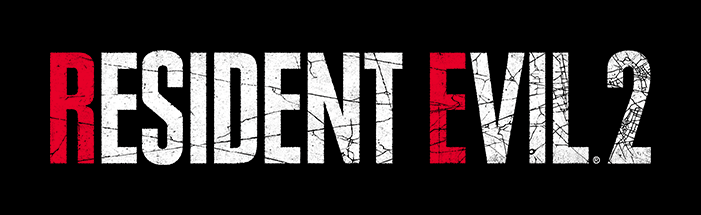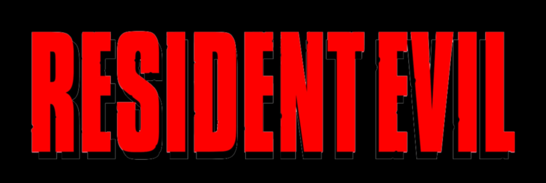
Resident Evil 6 Font - Forum Dafontcom
Resident evil font dafont. In dingbats > tv, movie. Jul 26, 2019 at 15:47. Show us a sample and we'll try to find the font.
Jan 07, 2012 at 23:40. The numbers are in the biohazard font, but there are a few extra resident evil. I've looked around myself a little bit, but found nothing.
Now i also added the font for the upcoming resident evil 3 remake. There's still a few pixels off, but hey it's something. The original font is a proprietary font.
Trajan suggested by sashix #2. The font collection section is the place where you can browse, filter, custom preview and. It is an action horror film that was first launched on march 21, 2002.
Pithazard replicates the font seen on the boxes japanese biohazard games with it's lower case letters and the american resident evil font with it's upper case letters (the but only the lower case letters are used). Resident evil characters by xstreamed.tv. Font meme is a fonts & typography resource.
A subreddit for identifying fonts: Font used in umbrella corporation logo (resident evil) identified. I cleaned the original type, removing the outlines from fine, caution and danger and shoved them into a font identifyer like fontsquirrel.
I know i promised over 1 year ago, that i. Plak contains 3 styles and family package options. Resident evil is a gothic, modern font.
Compare by yourself with older version. Resident evil suggested by sashix. This font belongs to the following categories:
The fonts in use section features posts about fonts used in logos, films, tv shows, video games, books and more; Afaik, this is the only one available for free and for personal use. Resident evil 6 font ?
Any one knows this font ? Sep 21, 2012 at 04:03. Family packages tech specs licensing.